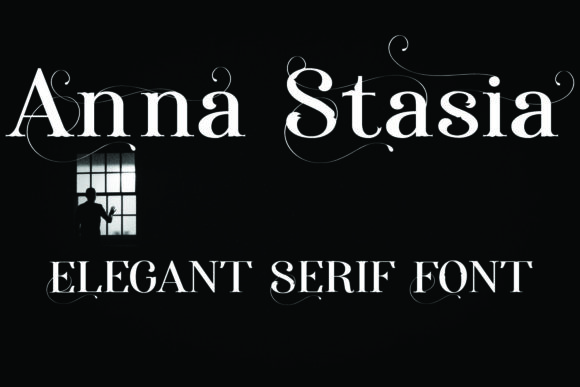
Anna Stasia Font
Anna Stasia is an elegant and refined serif font that emanates sophistication and elegance. Its stylish alternates and ligatures make this font the perfect match for any project.
Anna Stasia is PUA encoded which means you can access all of the glyphs and swashes with ease!